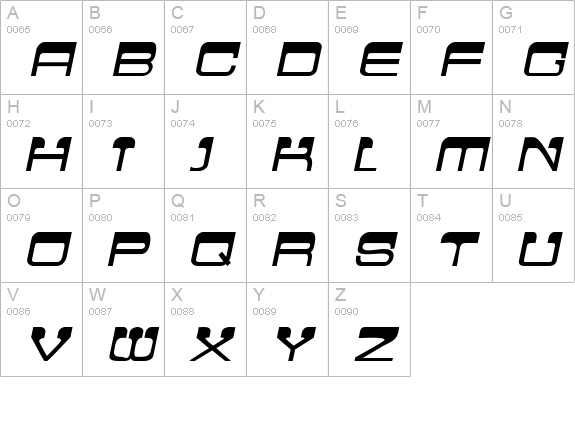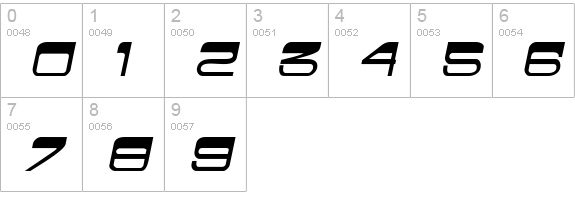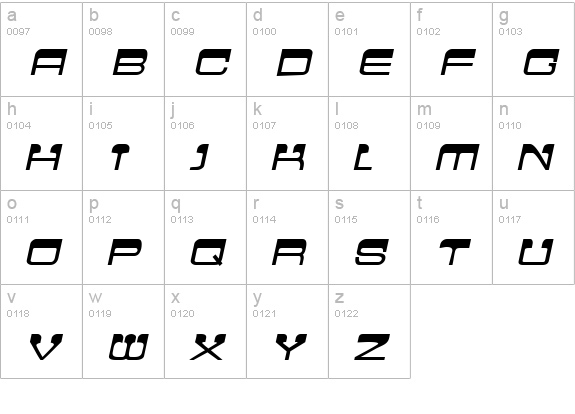
CrewCutCaps Bold Italic Font Details
CrewCutCaps Bold Italic is a strong, high-contrast, italic variant in the CrewCutCaps typeface family \xE2\x80\x94 well suited to headlines, attention-grabbing titles, and strong calls-to-action.
Introducing CrewCutCaps Bold Italic font, a dynamic and modern typeface that exudes confidence and style. This bold and italic version of CrewCutCaps is perfect for adding a touch of sophistication to your designs. With its strong lines and unique flair, this font is sure to make a statement. What's even better is that CrewCutCaps Bold Italic font is available for free download at FontsMarket.com. This means you can easily access this stylish typeface and use it in your projects without any cost. Whether you're designing a logo, creating a poster, or crafting a website, CrewCutCaps Bold Italic font will elevate your work and leave a lasting impression. Don't miss out on this opportunity to enhance your designs with the striking and versatile CrewCutCaps Bold Italic font. Download it for free today and let your creativity shine!